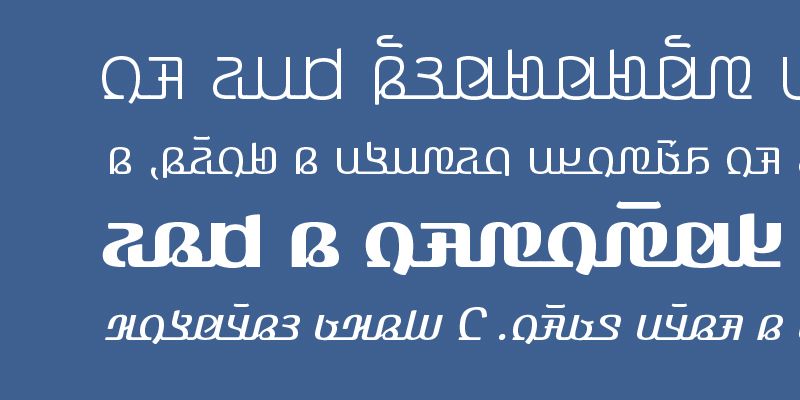
Kigelia Adlam Font Free Download is a beautifully crafted typeface designed specifically for the Adlam script, which is used to write the Fulani (or Pulaar/Fulfulde) language. Created with cultural respect and functional clarity in mind, this font offers both legibility and elegance—making it perfect for educational materials, publishing, signage, user interfaces, and community-focused design projects.
Kigelia Adlam combines modern type design with traditional Adlam script structure. It supports proper character shaping and contextual behavior, ensuring accurate digital representation of the script for native speakers and learners alike.